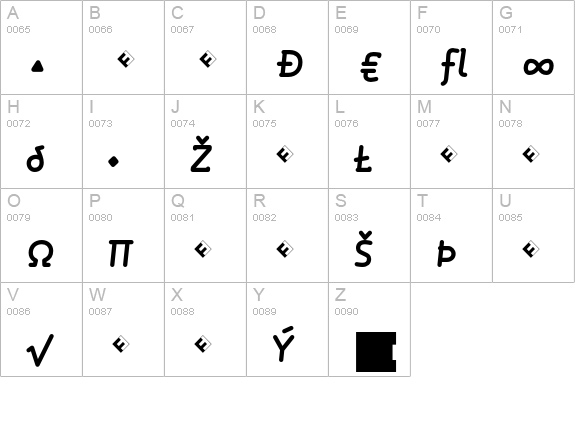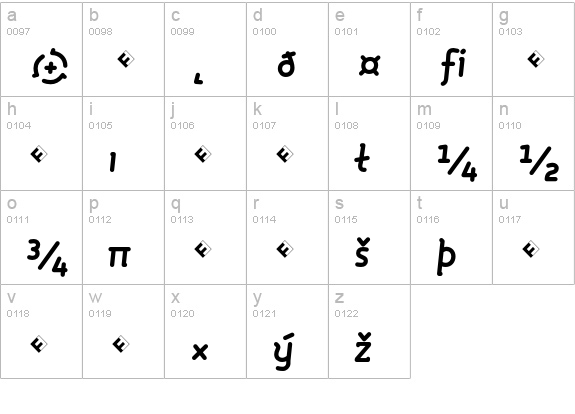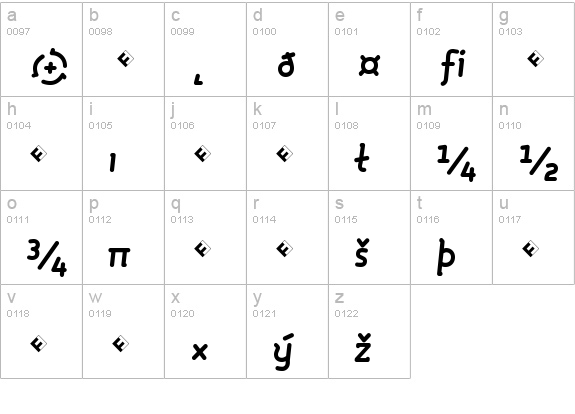
Roice-BoldItalicExpert Font Details
Introducing Roice-BoldItalicExpert, a striking and modern font that exudes elegance and sophistication. This unique typeface combines boldness with a touch of italic flair, making it perfect for projects that require a strong yet stylish aesthetic. Designed with expert precision, Roice-BoldItalicExpert is ideal for headlines, branding, and any design that needs to make a statement. Its sleek lines and subtle curves give it a contemporary edge that is sure to captivate viewers. The best part? Roice-BoldItalicExpert is available for free download at FontsMarket.com. Now you can elevate your designs with this exceptional font without breaking the bank. Don't miss out on the opportunity to add Roice-BoldItalicExpert to your font collection today!